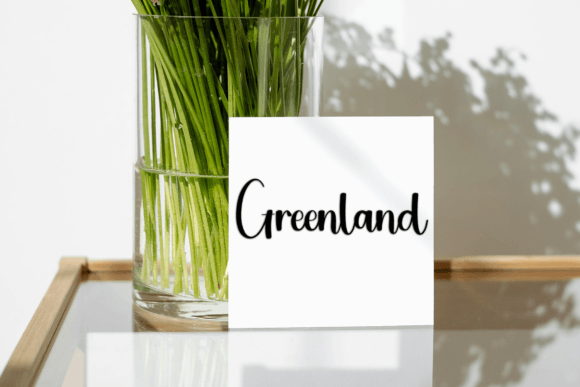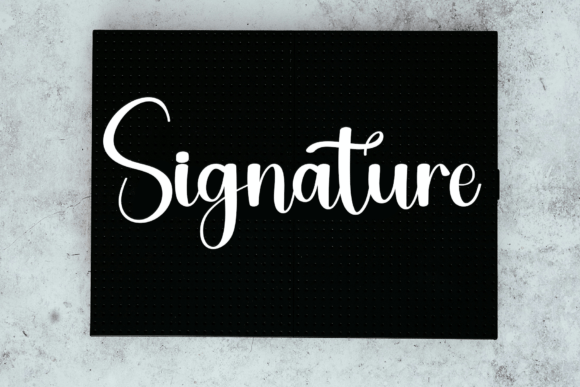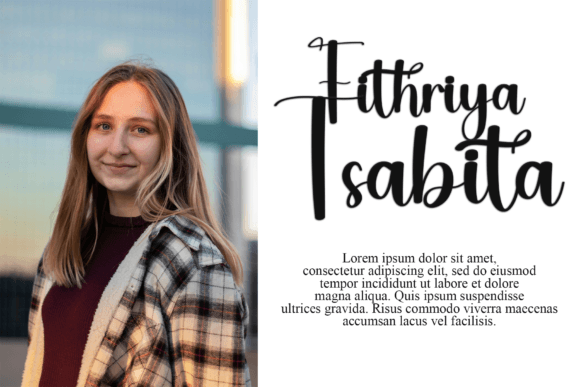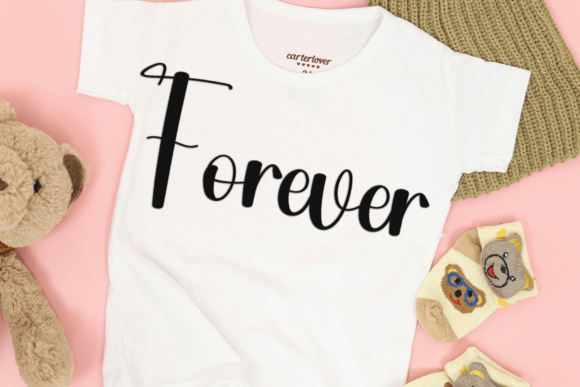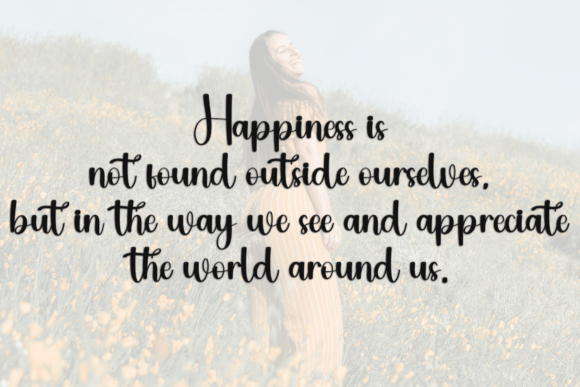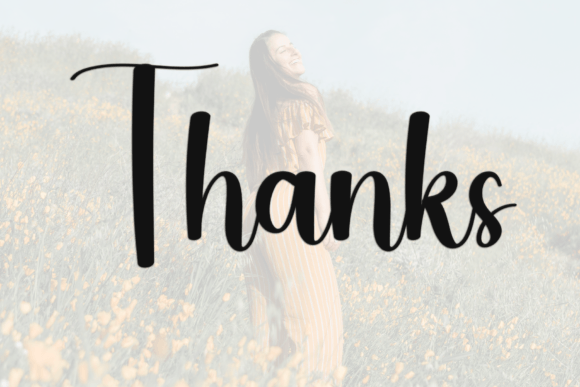
Discovering the Perfect Font for Your Next Design Project
As a designer, have you ever found yourself stuck in a creative rut, struggling to find the perfect font to match your vision? Maybe you’ve spent hours scrolling through font libraries, only to end up with a generic, uninspiring choice. But what if you could tap into a font that captures the essence of effortless elegance and laid-back charm?
Enter the Beautiful Font – a charming, handwritten font that exudes freshness and casual sophistication. Its fluid strokes and organic lines make it the perfect addition to any design project, from branding and invitations to social media graphics. Whether you’re looking to add a touch of warmth and personality to your designs or simply want a font that’s easy to work with, the Beautiful Font is sure to become your new go-to choice.
Key Features of Beautiful Font
• Font Family: Beautiful Font is a high-quality, professional font family that includes 6 styles: Thin, Light, Regular, Medium, Bold, and Black.
• Character Set: Supports a wide range of languages, including Latin, Cyrillic, Greek, and many non-Latin scripts.
• Unique Characteristics: Beautiful Font features a unique blend of elegance and sophistication, with subtle flair and ornate details that set it apart from other fonts.
• Size: The font family includes a wide range of weights and styles, making it suitable for use in a variety of contexts, from small text to large headings.
Designer Review: Beautiful Font
Overall, I was quite impressed with the Beautiful Font. The designers have done a great job in creating a font that’s both aesthetically pleasing and functional. Here are some of the things that stood out to me:
• ✨ Unique style: The font has a distinct personality that sets it apart from more generic fonts. The subtle flair and rounded edges give it a friendly and approachable feel.
• ✨ Good legibility: Despite its stylish appearance, the font remains easy to read, even at smaller sizes. This is a testament to the designers’ attention to detail.
• ✨ Versatility: Beautiful Font can be used in a variety of contexts, from body text to headings, and it works well in both print and digital formats.
• ⚠️ Limited language support: Beautiful Font is currently only available in a limited number of languages, which may be a drawback for designers working on multilingual projects.
Overall, I think Beautiful Font is a great addition to any designer’s toolkit. While it has some limitations, its unique style and good legibility make it a great choice for a wide range of projects.
The Beautiful Font is ideal for:
• Wedding invitations and stationery.
• Business cards and marketing materials.
• Photography and art projects.